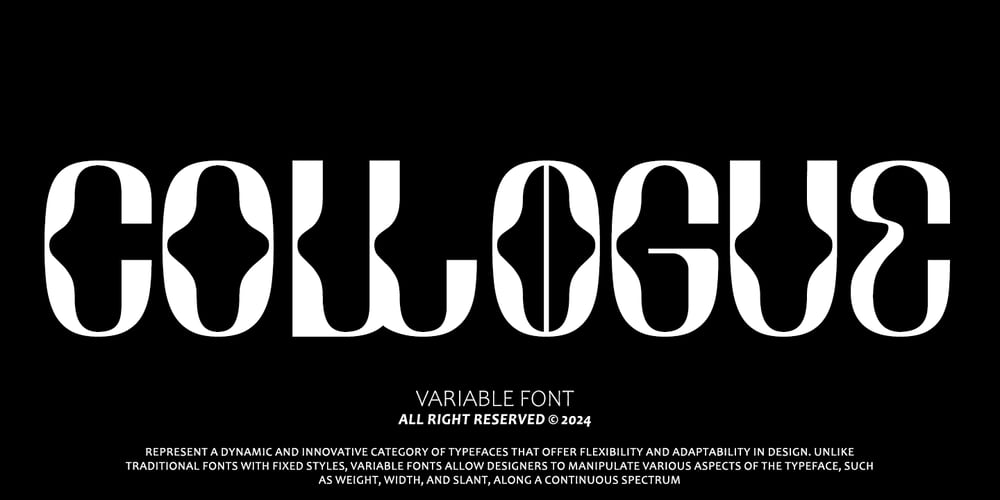
Collogue
Collogue font
Collogue Font Family was designed by Asep Rendy and published by Heyfonts. Collogue contains 18 styles and family package options. Collogue – Variable Font is a cutting-edge and versatile typeface that brings a new level of adaptability to display typography. Unlike traditional fonts with fixed styles, a variable font allows designers to manipulate various aspects of the typeface, such as weight, width, and slant, along a continuous spectrum. Here’s a comprehensive explanation of the features and functions of the Display Variable Font:Key Features:-Adaptive Design Elements: The primary feature of the Display Variable Font is its adaptability. -Designers can seamlessly vary specific attributes of the font, including weight, width, slant, and more. -This flexibility empowers designers to fine-tune the typography to suit the visual aesthetics of their projects.-Single Font File, Multiple Styles: Display Variable Fonts consolidate multiple styles into a single font file. This eliminates the need for separate files for different styles, providing a streamlined and efficient solution for designers.-Smooth Transitions: Changes in the font attributes occur smoothly and continuously. Unlike traditional fonts that switch abruptly between styles, a Display Variable Font ensures a fluid transition, allowing for a more harmonious and visually pleasing typographic experience.-Precision Control: Designers have precise control over the variation axis, enabling them to adjust the font’s appearance with granular precision. This level of control enhances the typographic customization possibilities and allows for fine-tuning based on specific design requirements.-Responsive Typography: Display Variable Fonts excel in responsive design. They adapt gracefully to various screen sizes and resolutions, ensuring optimal readability and aesthetics across different devices.Functions:-Dynamic Branding: For brands looking to establish a dynamic and adaptable visual identity, Display Variable Fonts offer the perfect solution. The font’s ability to adjust seamlessly allows for a versatile and cohesive branding experience across diverse applications.-Editorial Freedom: In editorial design, Display Variable Fonts provide editorial teams with the freedom to experiment with typography. The font can be adjusted to suit different sections or emphasis points within publications, enhancing the overall visual appeal.-Web Design Innovation: Display Variable Fonts are at the forefront of innovation in web design. They enable designers to create dynamic and interactive typographic elements that respond to user interactions, contributing to a modern and engaging web experience.-Attention-Grabbing Displays: Whether used in signage, banners, or large-scale displays, Display Variable Fonts stand out with their adaptability. Designers can experiment with different styles within a single font to create attention-grabbing and visually dynamic displays.-Customizable Interfaces: In digital interfaces, Display Variable Fonts provide a customizable typographic experience. Designers can optimize text elements for different device sizes and orientations, ensuring a seamless and visually pleasing user interface.-Innovative Advertising: Display Variable Fonts offer a fresh approach to advertising typography. Brands and advertisers can leverage the font’s adaptability to create visually striking and memorable campaigns across various media channels.In summary, Display Variable Fonts represent a groundbreaking evolution in typographic design, providing designers with unprecedented flexibility and control